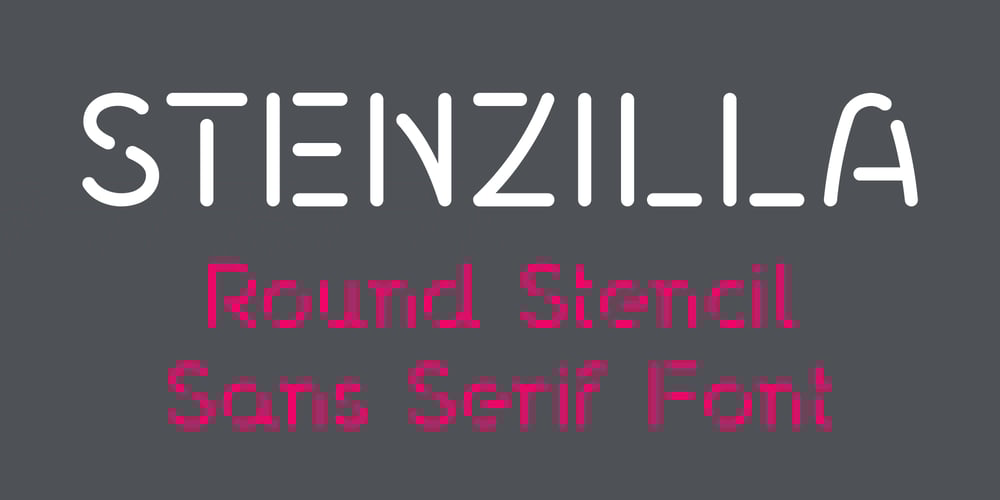
Stenzilla Font Family was designed by Daniel Ramirez and published by DarezD. Stenzilla contains 1 styles and family package options. Stenzilla is a stencil font based on a rounded sans serif, a careful design, with cuts on the same diagonal axis for the curved strokes and elegant slight curves on the oblique strokes. Useful for branding, highlighted paragraphs, signs, headlines, or reading text. The design incorporates characters from the Cyrillic alphabet, special characters, and characters with diacritical marks. It has the versatility of a sans serif that allows it to be used in a wide variety of designs and styles along with the cut-stroke grace of a stencil font.